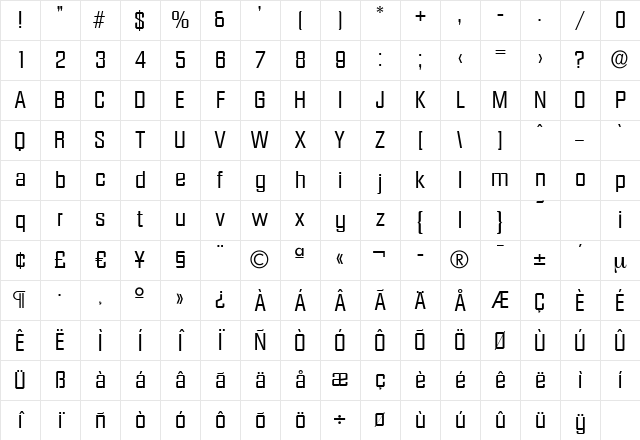
Complete SeanBecker Regular glyph index. Displaying only characters natively supported by SeanBecker Regular font.
SeanBecker is a composed and adaptable typeface that performs quietly and consistently across a wide range of design contexts.